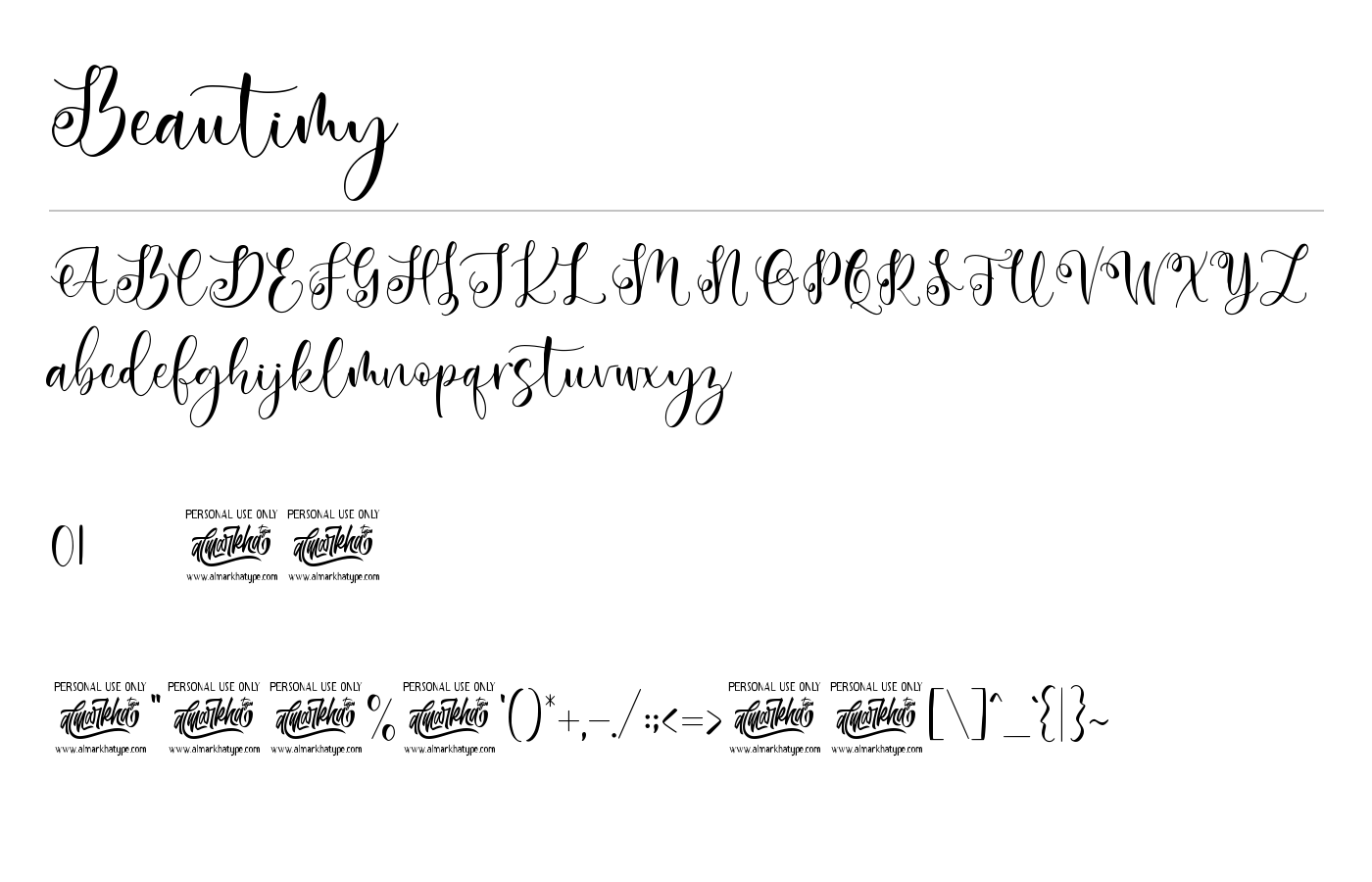
Beautimy Font is an elegant and flowing script typeface characterized by its delicate, handwritten style with graceful swashes and loops. Its slender strokes and decorative uppercase letters make it perfect for adding a romantic or sophisticated touch to invitations, branding, and personal projects. This font works best in display settings where its intricate details can shine, such as logos, wedding stationery, and stylish headlines.
Beautimy Font
About Beautimy Font
| Font family | Beautimy Font |
| Designer | Almarkhatype 2020 - Abdul Malik - Ghazi |